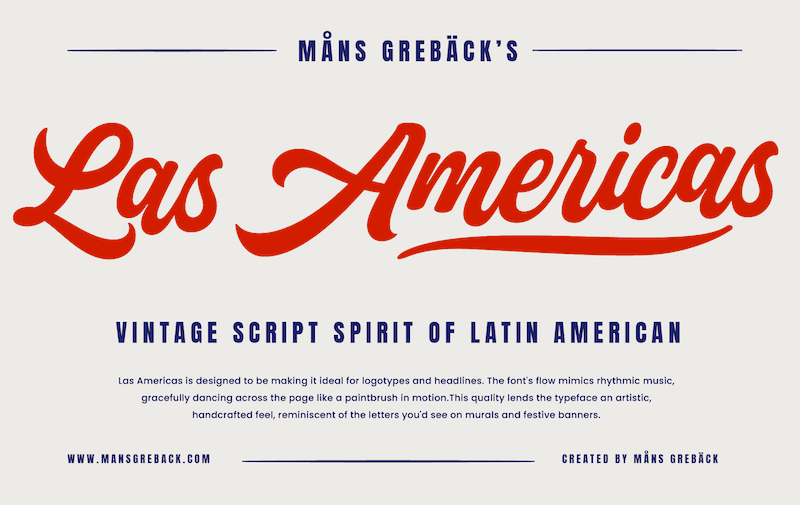
NOTE: This font is for PERSONAL USE ONLY! To purchase a commercial license, visit: http://mn.sg/las-americas Las Americas is a bold script typeface that embodies a vibrant spirit. Its heavy, bold strokes convey a sense of confidence Use one or multiple underscores _ anywhere in the word to create a swash. Examples: Amer_icana Oce___anic For questions, please visit www.mansgreback.com/faq |